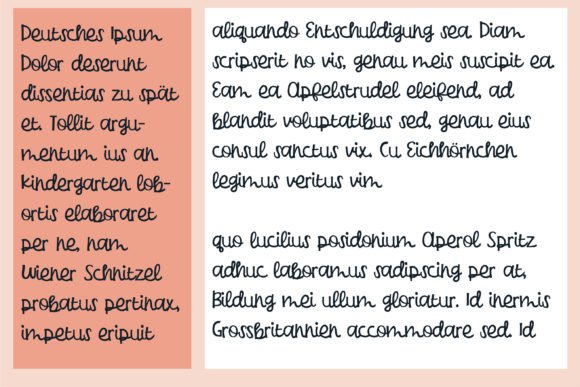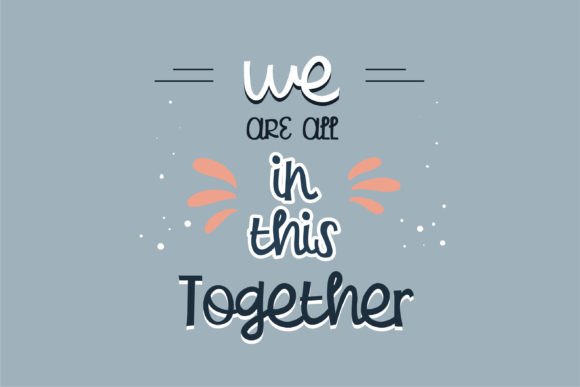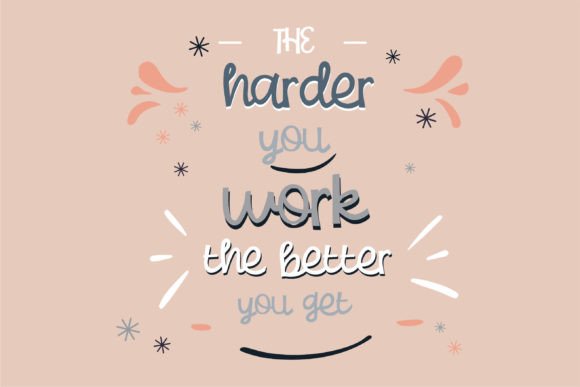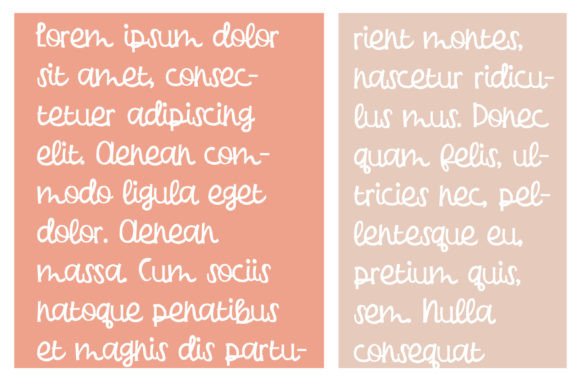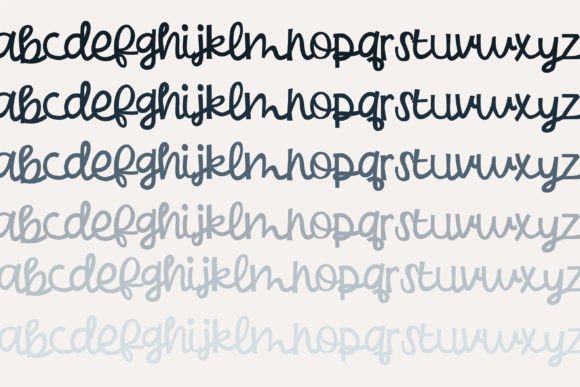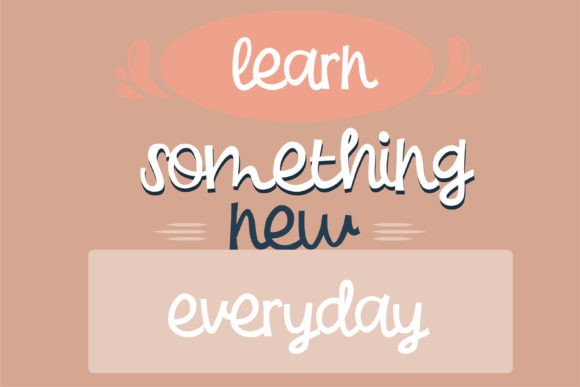
Quidator Font
About Quidator Font
Introducing this charming hand-written script, characterized by a crafty and slightly bulky yet undeniably cute aesthetic. This font is tailor-made for various applications, serving as the perfect fit for stationery items, product packaging, youthful branding, or even the covers of storybooks.
The crafty and bulky nature of this script adds a unique character, making it stand out with a delightful charm. The carefully crafted letters contribute to the font’s overall appeal, striking a balance between a playful feel and a substantial, eye-catching presence.
Consider using this script on stationery items, where its cute and crafty look brings a touch of whimsy to handwritten notes or personalized cards. For product packaging, the font adds a youthful and energetic vibe, making your products instantly appealing to a younger audience.
In the realm of branding, this hand-written script is a versatile choice for youthful and vibrant brands. Its cuteness factor can add a sense of approachability and friendliness, creating a connection with your target audience. Additionally, the font is well-suited for storybook covers, infusing a sense of playfulness into the visuals and setting the tone for an engaging narrative.
Imagine this script gracing the cover of a children’s storybook, where its crafty and cute appearance enhances the visual storytelling experience. Or envision it on a line of stationery products, creating a cohesive and charming brand identity.
In essence, this hand-written script is more than just a font; it’s a creative tool that adds a delightful touch to your projects. Whether it’s stationery, product packaging, branding, or storybook covers, this script is the perfect choice for creating a cute and crafty aesthetic that resonates with a youthful and energetic audience. Let it bring a playful charm to your designs and make them stand out with an adorable appeal.